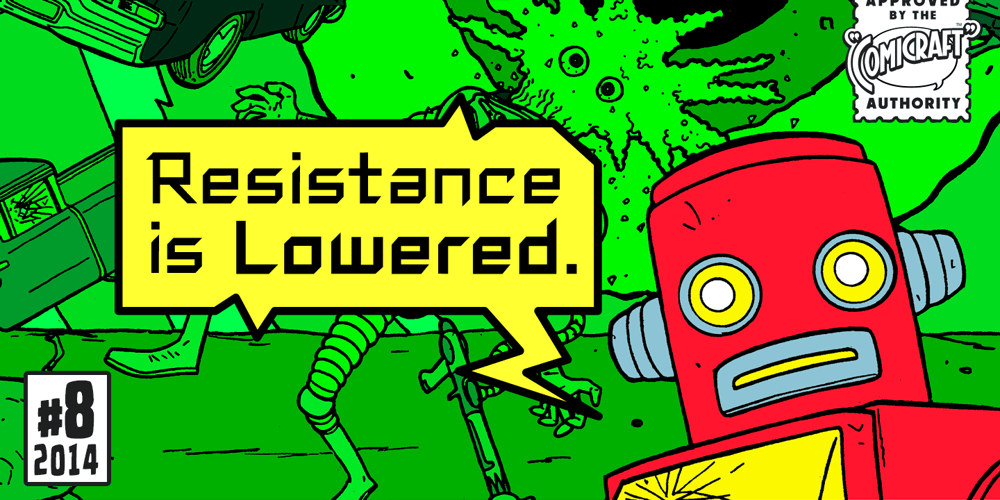
Resistance Is Lowered Font Family was designed by John Roshell and published by Comicraft. Resistance Is Lowered contains 4 styles and family package options. Lower your shields and surrender your ships. You will talk to your central world authority in upper AND lower case, and order global surrender. Your culture will adapt to serve us in sentence case. You will not shout in UPPER CASE as before. You will be upgraded. You will become like us. Upgrading RESISTANCE IS FUTILE to RESISTANCE IS LOWERED is compulsory. There is no escape.Artwork from Monster Truck by Shaky Kane